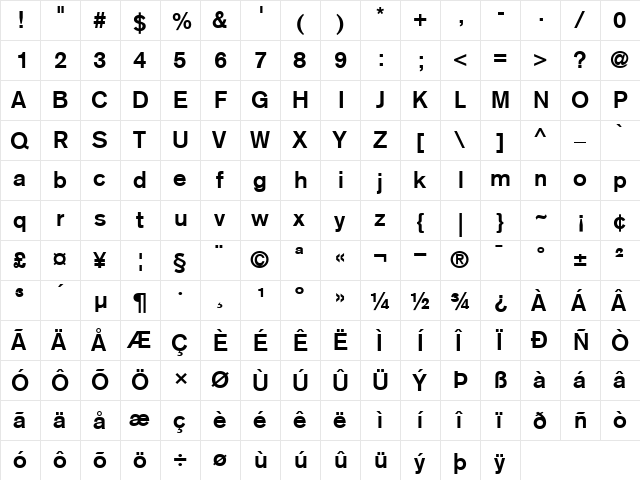
AkzidenzGrotesk Regular Font Preview
AkzidenzGrotesk Regular
Design Context for AkzidenzGrotesk Typeface
AkzidenzGrotesk takes a clean, functional approach — its unadorned letterforms prioritise legibility and work reliably across screen and print environments.
Font Pairing: Works well alongside a characterful serif or display font that can carry the expressive load while AkzidenzGrotesk handles the functional copy.
Pro Tip: Pair AkzidenzGrotesk with a display or serif font for headlines — its neutral character makes it an excellent supporting player in complex typographic systems.